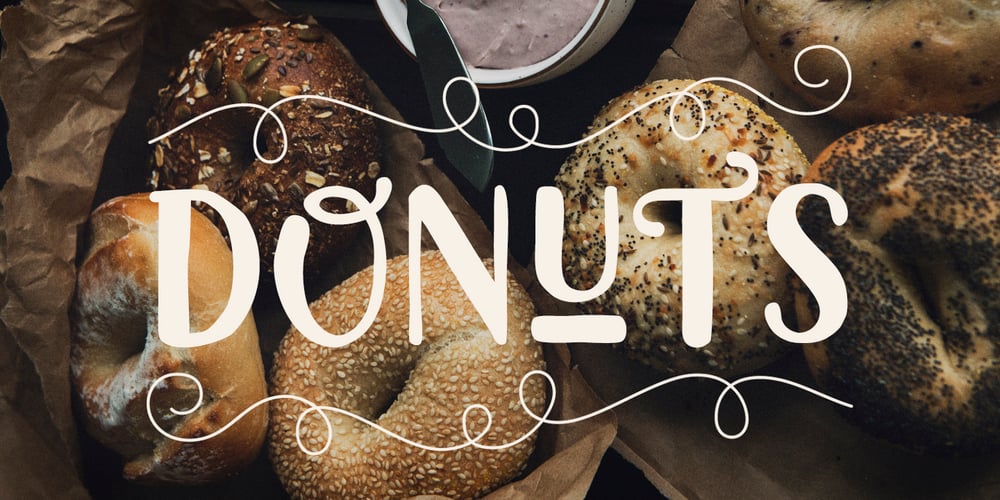
Passiflora
Passiflora font
Passiflora Font Family was designed by Franco Jonas Hernández and published by Compañía Tipográfica de Chile. Passiflora contains 8 styles and family package options. Passiflora is a unicase display font with elegant shapes and swashes, imitating the handraw in a friendly and llamative aesthetic. This font inspires the facade inscriptions and rotulations of the buildings in the XX century of Santiago, as the fresh features of rounded brushes. Passiflora counts with 7 variants: Regular, Shadows, Outline, and Decorative version. Every variable contains more than 800 glyphs and a wide support of languages from Occidental, Central and Oriental Europe and Vietnamitese. This font is perfect to decorate book covers, showcases, packagings, posters, titles , among other uses. Passiflora counts with OpenType Alternates, Swashes, Titling alternatives, Stylistic sets, Discretionary Ligatures, Ornament sets and modern numbers, denominators and numerators, customized and become unique, allowing dinamism to the design.